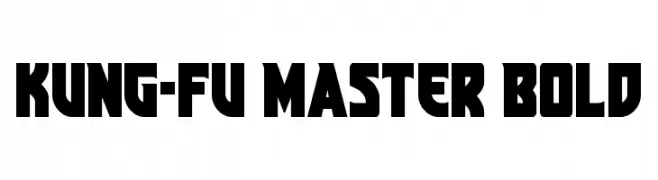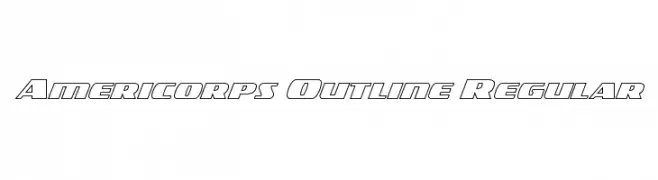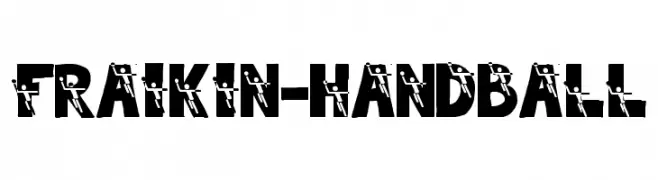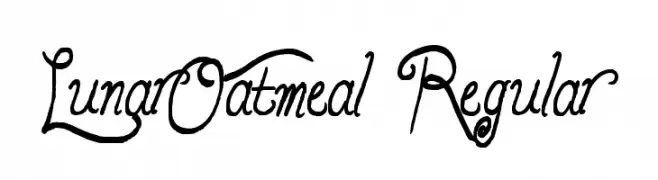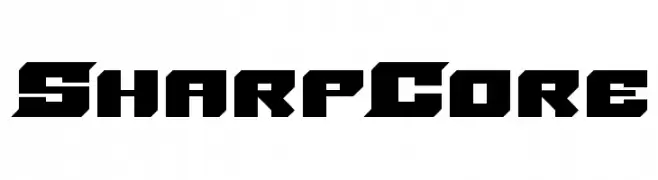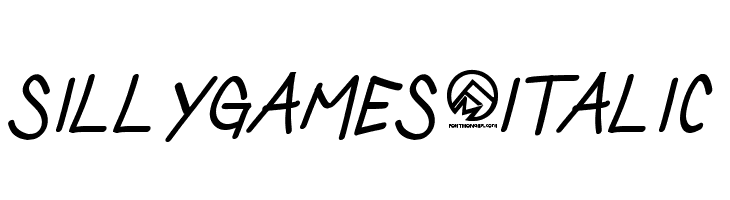
Playful handwritten script font.
An artistic and ornamental font with elegant curves and a sophisticated style.
A bold, geometric font with strong, angular shapes and a powerful presence.
A bold, outlined font with a modern, geometric design.
A decorative font featuring whimsical, mask-like characters with intricate designs.
A bold, playful font with handball player motifs integrated into each character.
A whimsical and decorative font with intricate curls and swirls.
A bold, geometric font with sharp, angular edges and a futuristic feel.
Casual handwritten font with playful character.